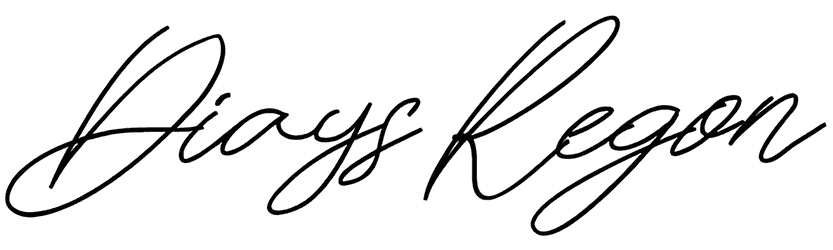
Diays Regon Font
If you are really in need of a script font to add a personalized touch to your graphic content, we would offer you Diays Regon.
This handwritten typeface feels really elegant and flowing, so you can share a sense of momentum, softness, delicacy, and jauntiness by using it in posters, magazines, web pages, book covers, and flyers. This point shouldn’t be overlooked as due to its cursive design, it lacks good readability.
diays regon signature font is a thin lettered and delicate script font. This font flows beautifully on each of your creations and it embellishes all of them.